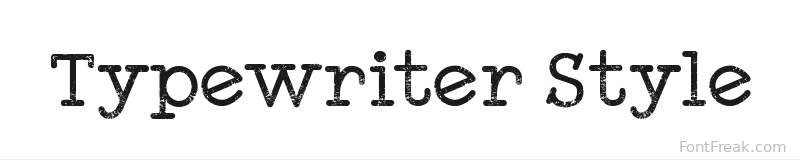
Typewriter Style
About Typewriter Style
The Typewriter Style font by Galdino Otten Fonts is a captivating display typeface that draws inspiration from vintage typewriter aesthetics. This font features a unique serif style, characterized by its slightly irregular stroke weight that evokes a nostalgic charm reminiscent of classic typewritten text. The font exhibits moderate contrast, lending it an authentic feel, while its spacing is thoughtfully designed to ensure readability and visual appeal. The subtle decorative elements, such as the distressed textures, enhance its vintage allure, making it a striking choice for various design projects.
Ideal for use in wedding invitations, where its classic typewriter look adds a personal touch, the Typewriter Style font also shines in movie posters, giving them a retro flair that captures attention. Additionally, it is perfect for restaurant menus, especially those focused on vintage or rustic themes, as it adds a unique character that engages diners. Small business owners can leverage this font in branding materials, providing an inviting and creative edge that sets them apart. Content creators will find it a great fit for blog headers and social media graphics, where a touch of nostalgia can enhance audience engagement.